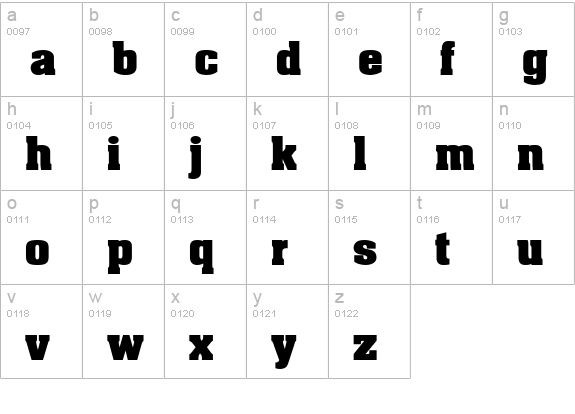
AaronBold Font Details
Introducing AaronBold, a stunning and versatile font that exudes boldness and confidence. With its strong and impactful letterforms, this typeface is perfect for making a statement in any design project. AaronBold offers a unique blend of modernity and sophistication, making it ideal for a wide range of applications. Whether you're designing a logo, creating a poster, or crafting a website, this font will add a touch of elegance and professionalism to your work. One of the best things about AaronBold is that it is available for free! That's right, you can freely download this incredible font at FontsMarket.com. It's a fantastic opportunity to enhance your design arsenal without breaking the bank. With its extensive character set, AaronBold allows for seamless integration across different languages and typographic styles. Its clean and sharp lines ensure legibility at any size, making it perfect for both print and digital projects. Whether you're a seasoned designer or just starting out, AaronBold will elevate your designs to new heights. Its versatility and timeless appeal make it a must-have font for anyone looking to make a lasting impression. So why wait? Head over to FontsMarket.com and download AaronBold today. Experience the power and beauty of this incredible font, and take your designs to the next level.